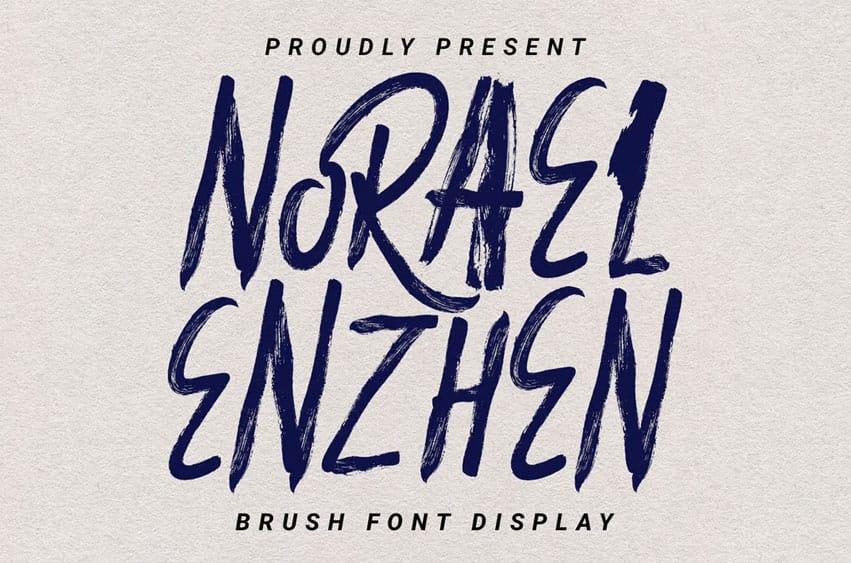
Norael Enzhen Font handmade brush display font display, fun character with alternates and ligatures. To give you extra creative work.
Norael Enzhen handmade brush display font supports multilingual languages.
Norael Enzhen Font